More clever and/or gorgeous stuff. For those of you who have run off A-E, congrats!
Now here’s E.
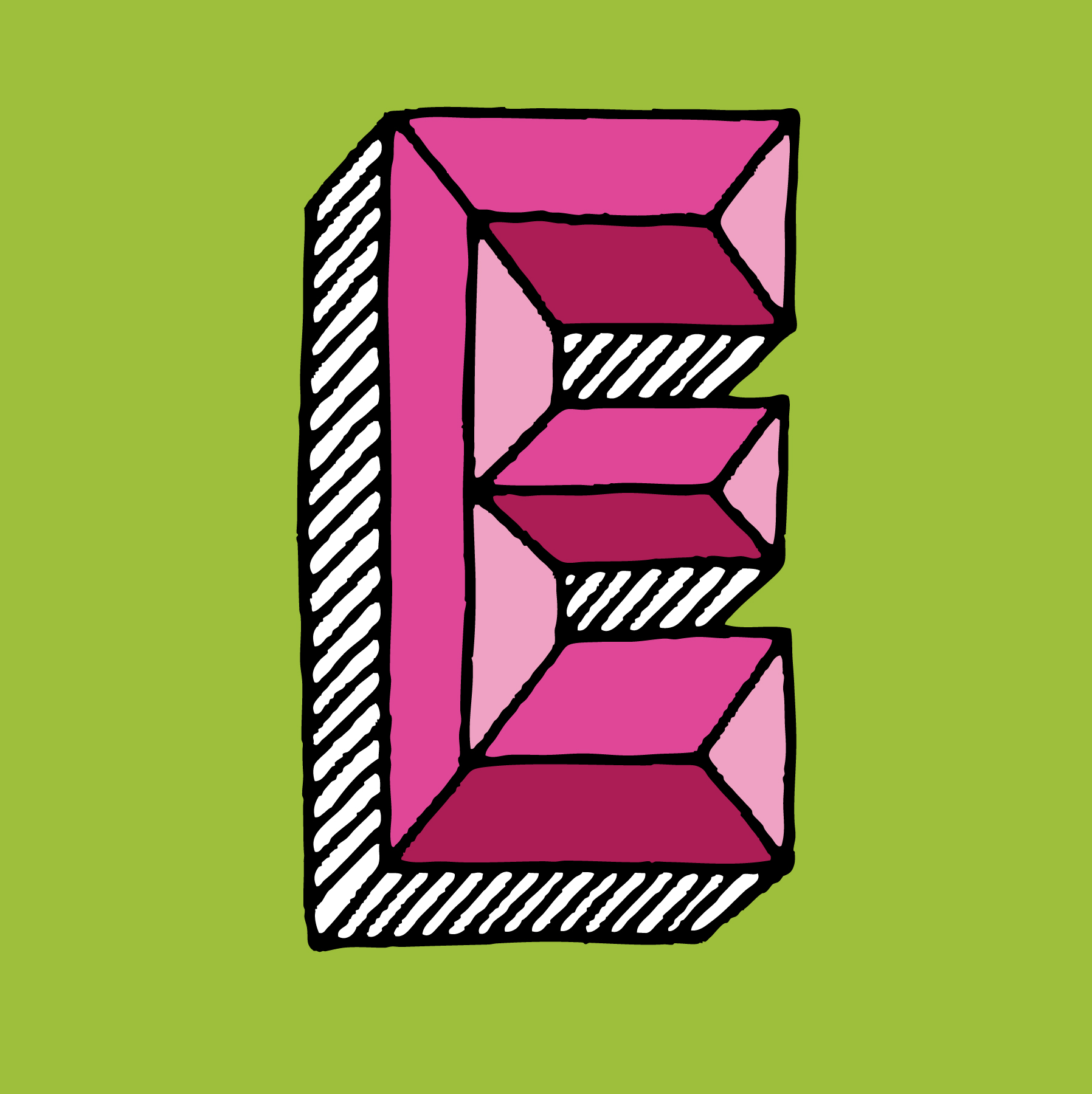
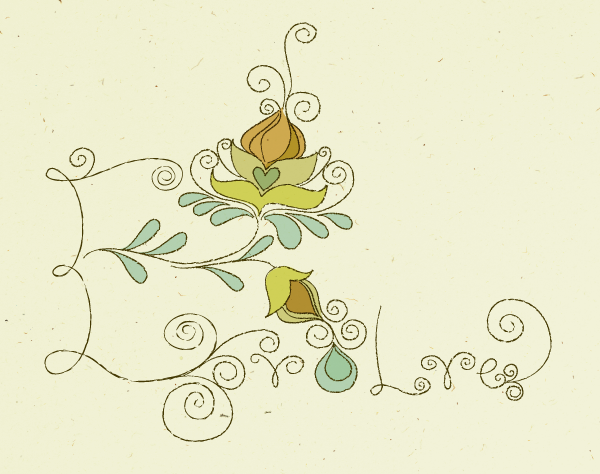
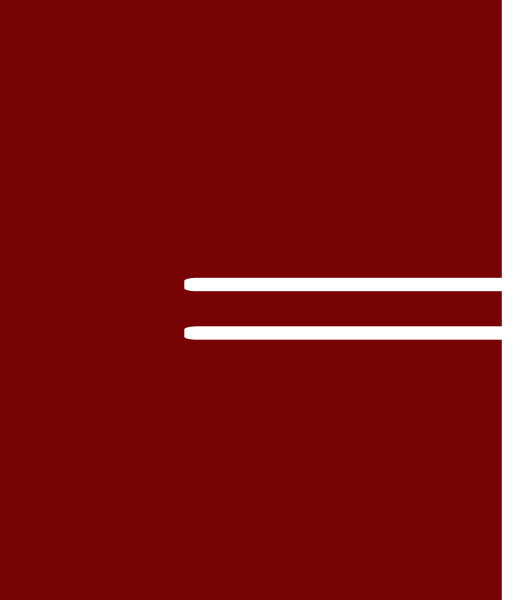
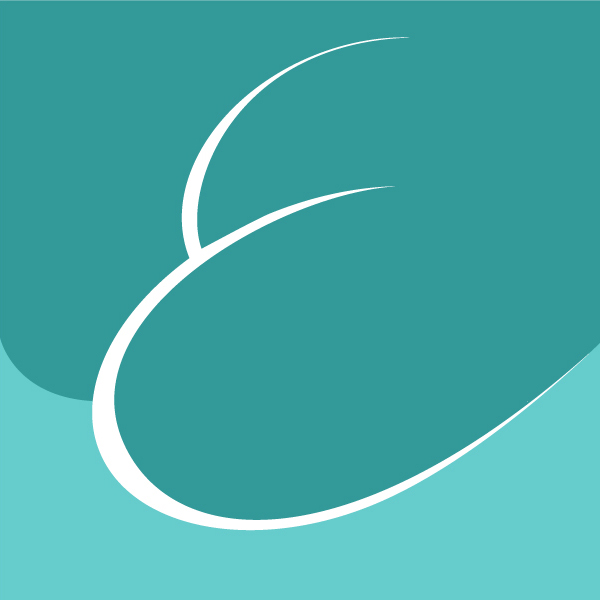
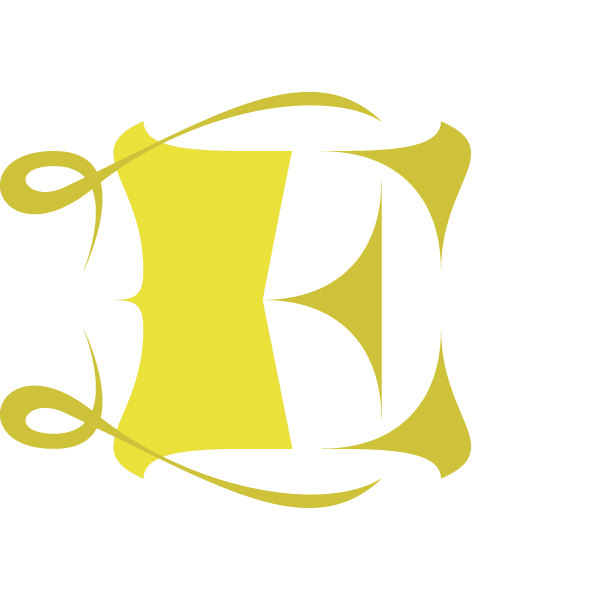
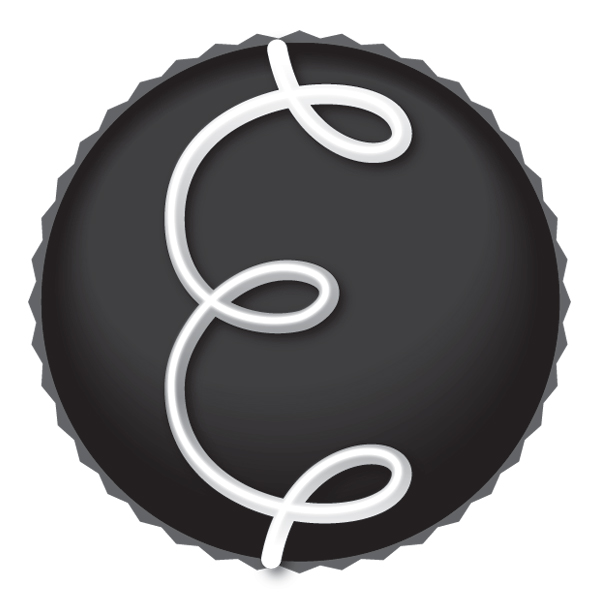
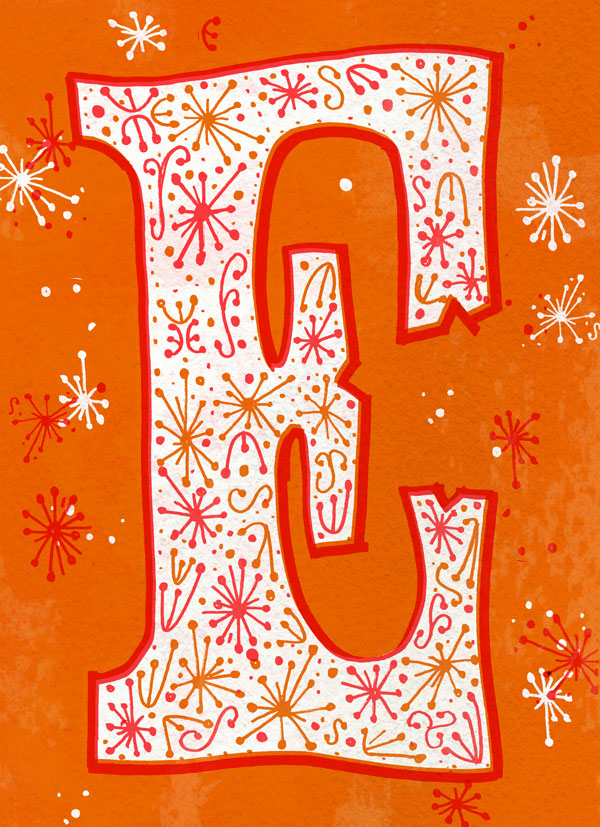
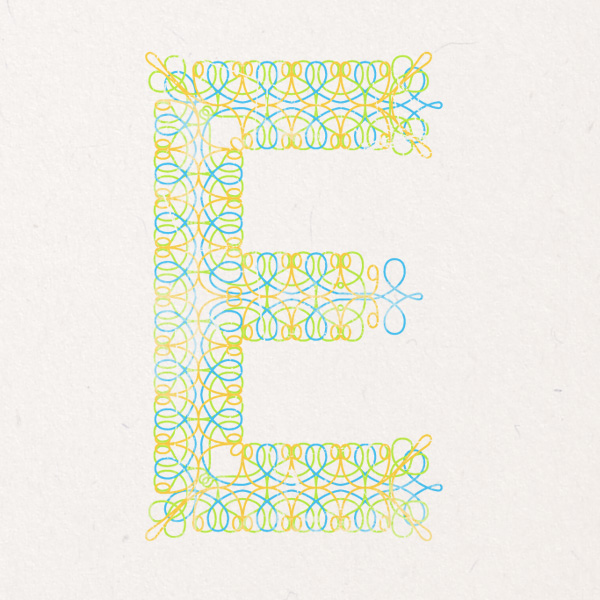
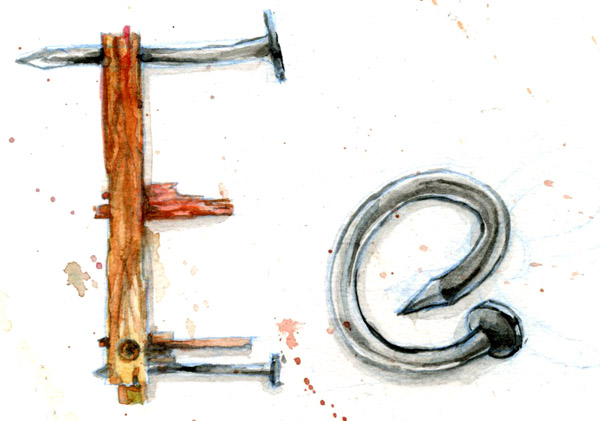
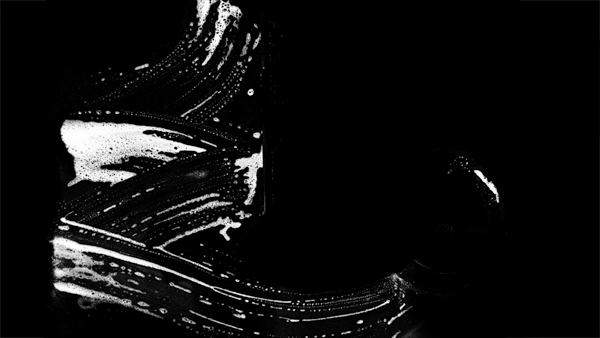
i love all of the letters intricately painted on the fingers…